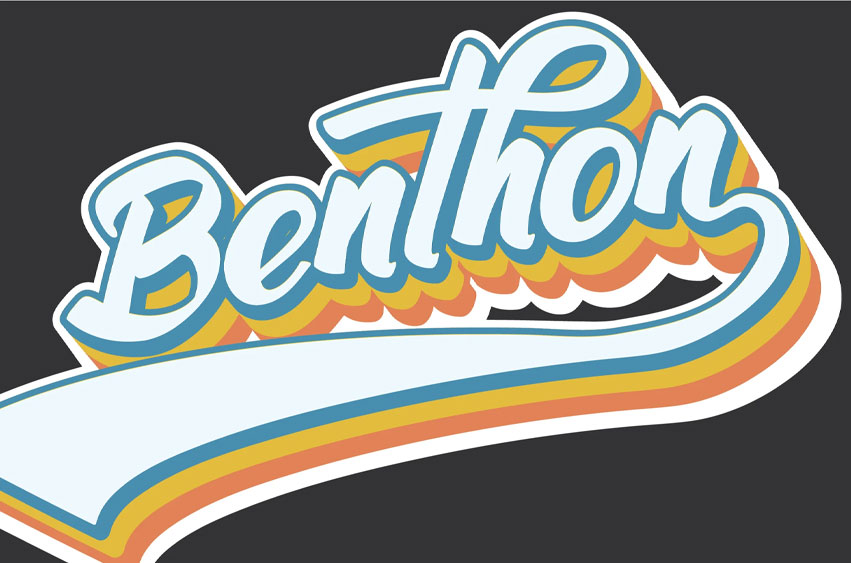
Benthon Font is created with a retro style and is designed to be used as a logo or branding project. It features a unique style and will add a vintage & retro feel to your upcoming projects. Get inspired by its unique feel and use it to create logos, product packaging or posters, and many more!